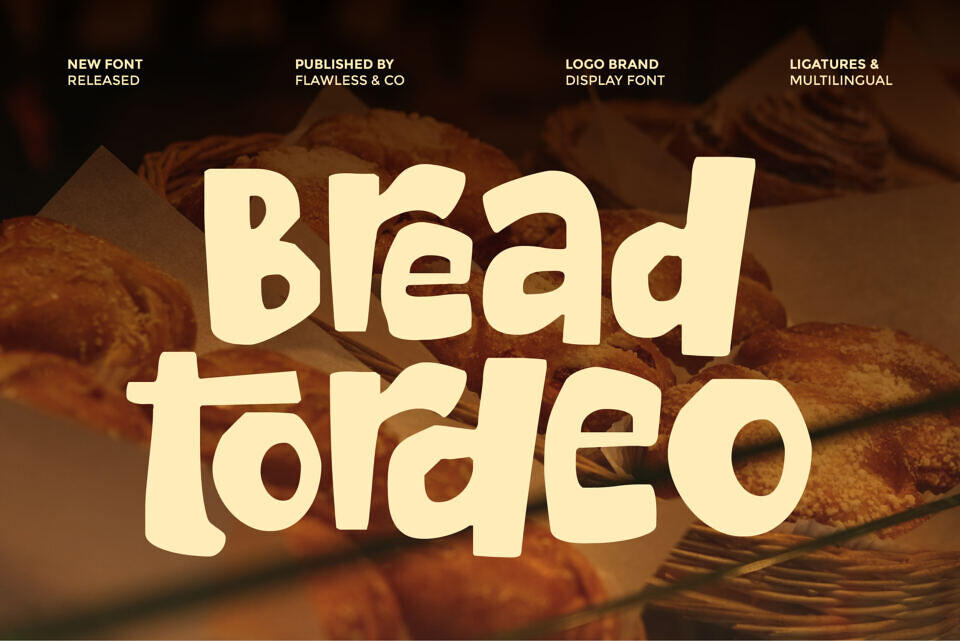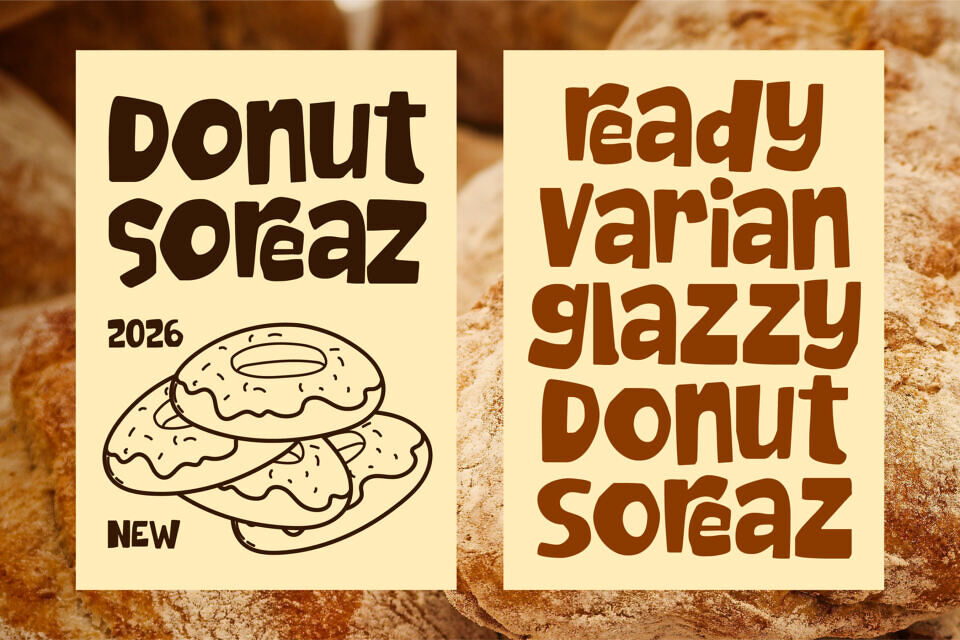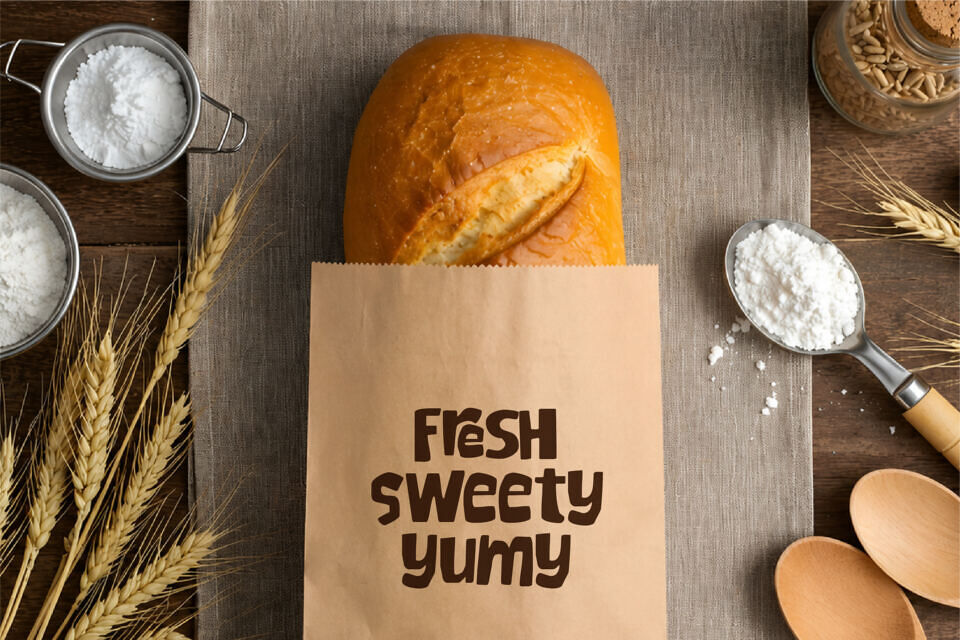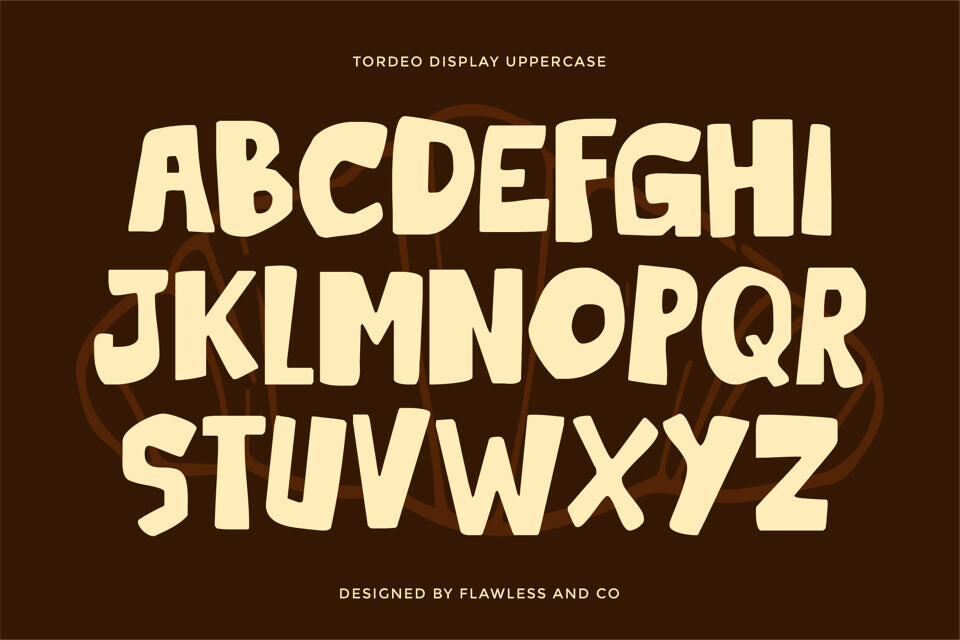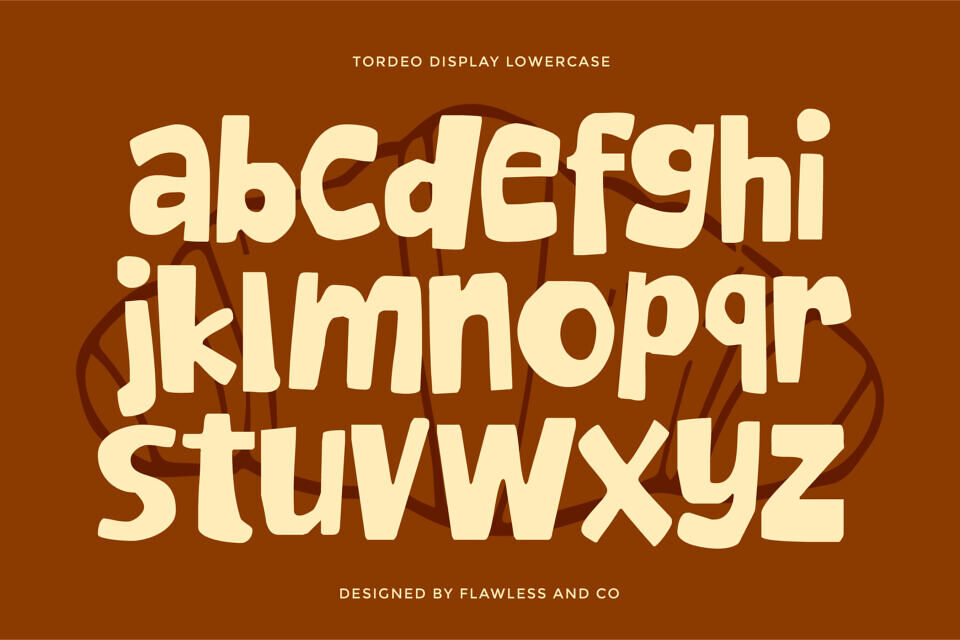
Tordeo Font
Tordeo is a unique display typeface designed to deliver bold creativity and unforgettable visual impact. Featuring distinctive letterforms, artistic shapes, and expressive details, Tordeo creates a striking appearance that instantly stands out in any design.
Its modern and unconventional style brings strong personality and originality, making it perfect for projects that demand attention and creative expression. Whether for branding, posters, packaging, or digital content, Tordeo adds a fresh and dynamic typographic character to every composition.